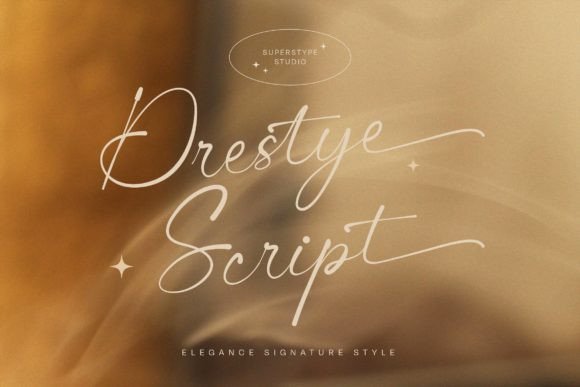
The Birth of a Beautiful Script: Introducing Drestye Script Font
Have you ever sat at your desk, staring at a blank page, waiting for inspiration to strike? The cursor blinks, and the silence is deafening. But then, a spark of creativity ignites, and you begin to see the world in a new light. The lines start to flow, and the words begin to take shape. This is the moment when a great design is born, and we’re thrilled to introduce you to the perfect companion for that creative journey – the Drestye Script Font.
This stunning script font is designed to create a captivating experience with beautiful strokes, leaving an aesthetic impression that seamlessly complements your various designs. With its PUA encoding, you can access all of the amazing glyphs and ligatures with ease, making it a valuable addition to any designer’s toolkit.
Drestye Script Font Key Features
- Unique Characteristics: Elegant and cursive script font, suitable for creative and artistic projects
Drestye Script Font Review
I’ve had the chance to work with Drestye Script Font and I must say it’s a unique addition to any design project. Here are my thoughts on what works well and what doesn’t.
- The font has a beautiful, hand-painted feel to it, making it perfect for projects that need a personal touch.
- The script font is highly customizable, allowing designers to adjust the thickness, spacing, and letterforms to fit their design style.
- Drestye Script Font is highly legible, even at smaller font sizes, making it suitable for a wide range of design applications.
- The font may be too ornate for some designs, overpowering the content and making it difficult to read.
- The script font may not be suitable for projects that require a more modern or minimalist aesthetic.
- The font’s complexity may make it challenging to work with for designers who are new to script fonts.
Overall, Drestye Script Font is a great choice for designers who want to add a touch of elegance and sophistication to their projects. However, it’s essential to use it judiciously, considering the project’s tone and style.
Tips for Getting the Most Out of Drestye Script
To get the most out of Drestye Script, use it sparingly to create visual interest. Pair it with clean sans-serif fonts for a balanced look. Experiment with different font sizes and colors to create a unique visual effect.
Drestye Script is commonly used for: Wedding invitations, Baby shower invitations, Quotes and inspirational graphics, Titles and headings, and any design that requires a elegant, cursive touch.